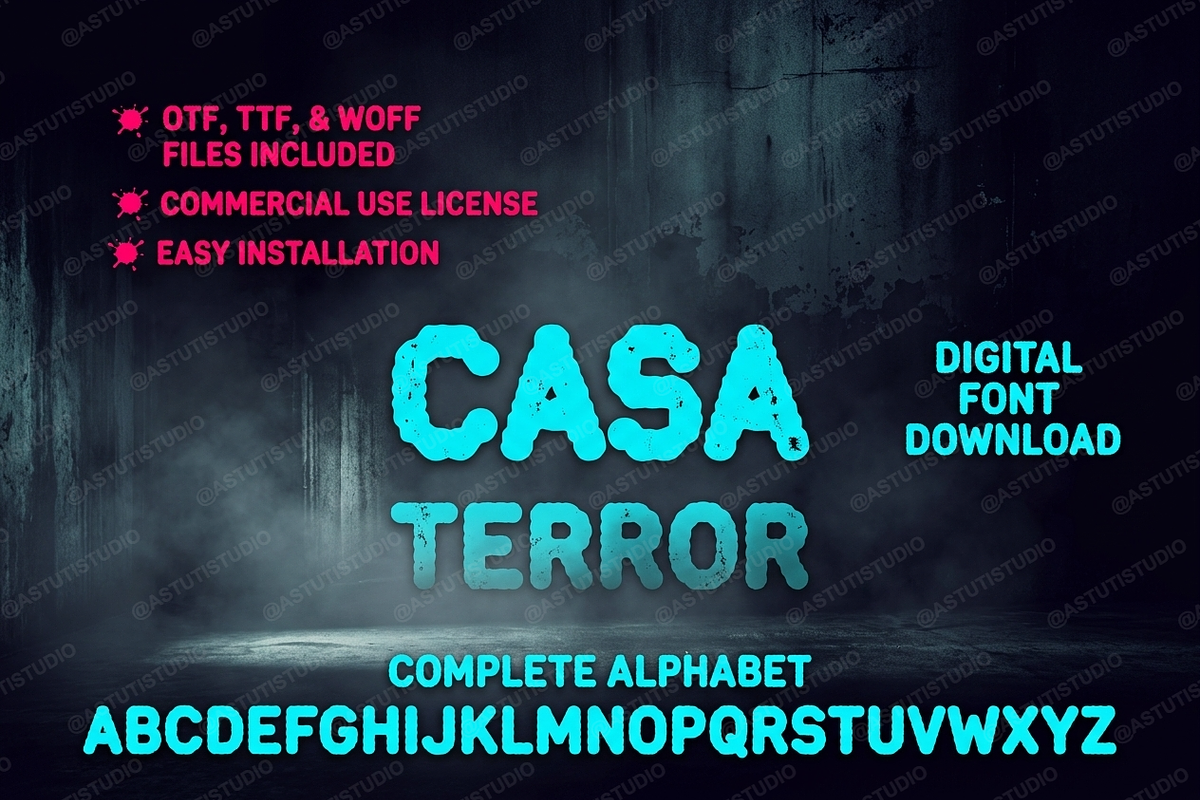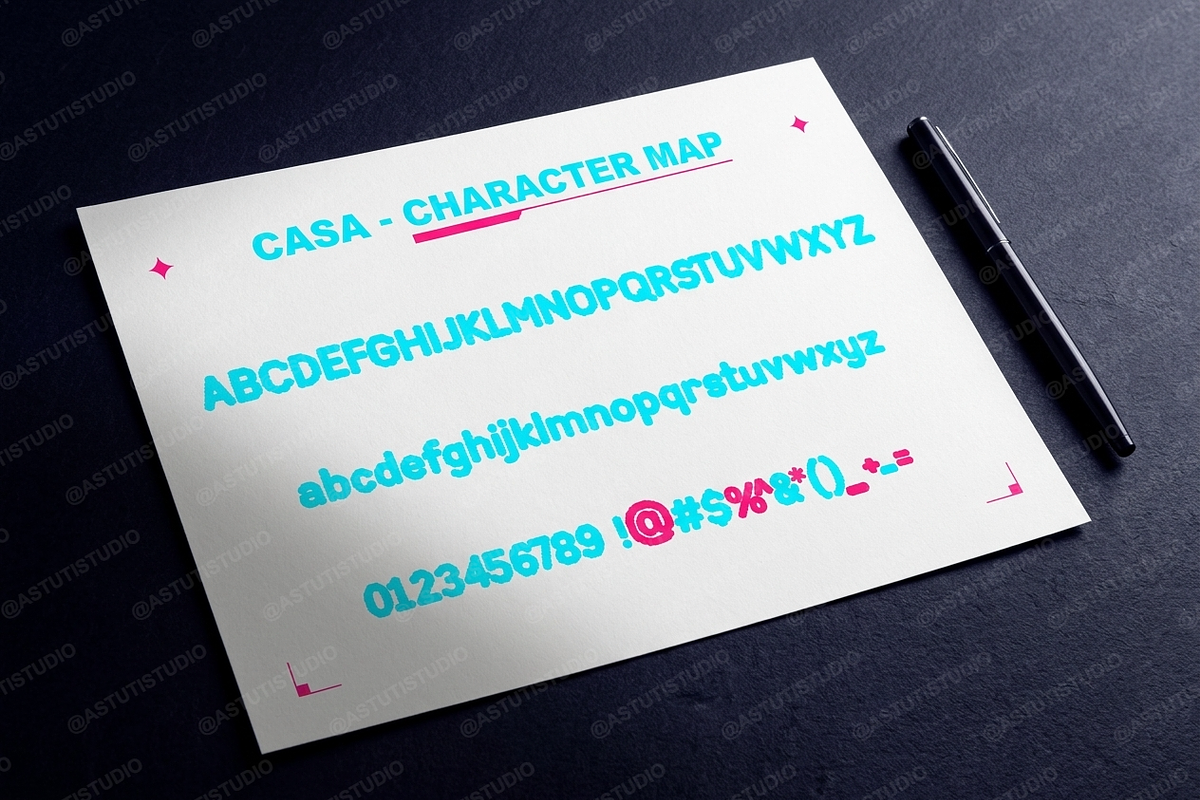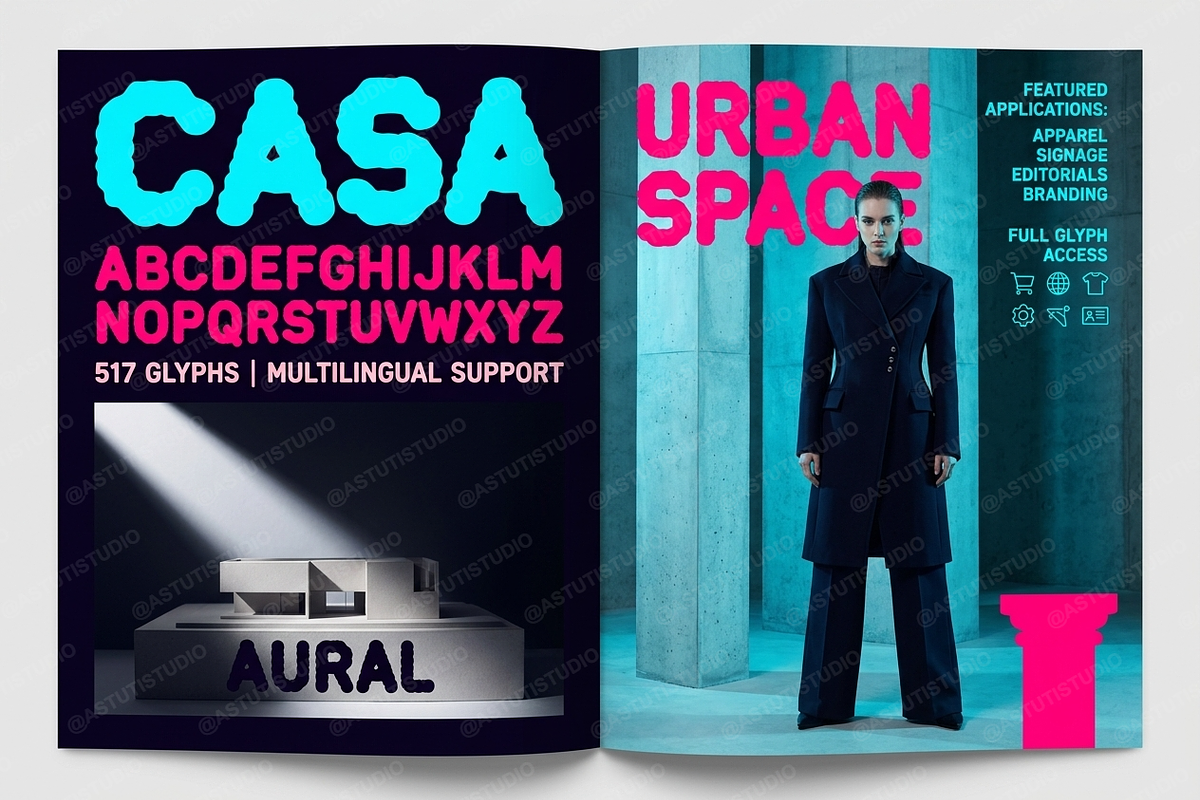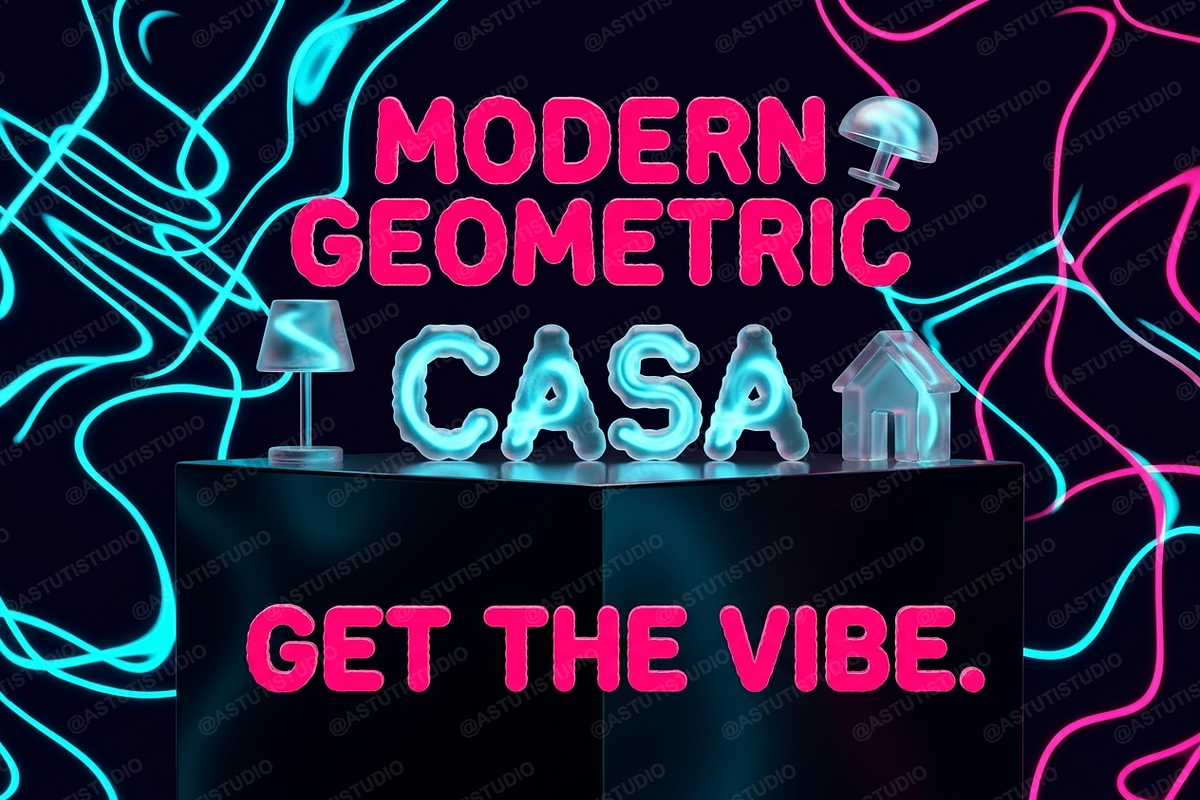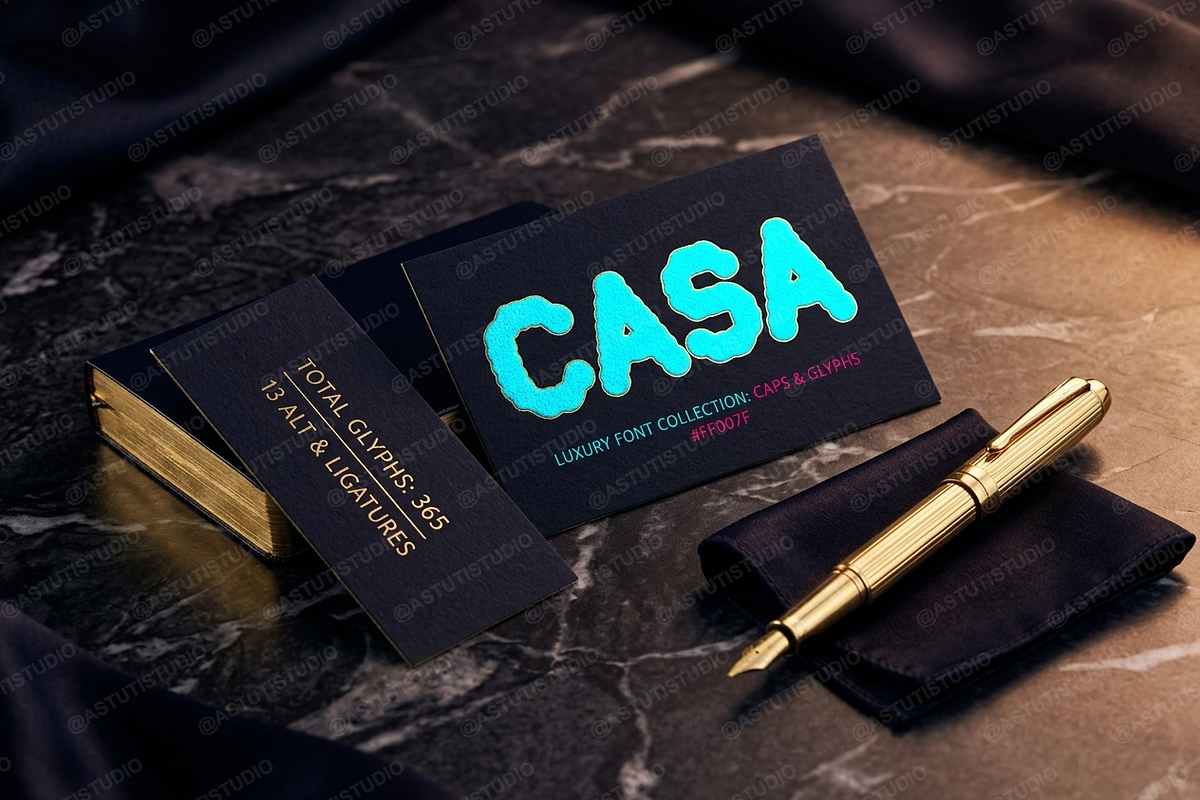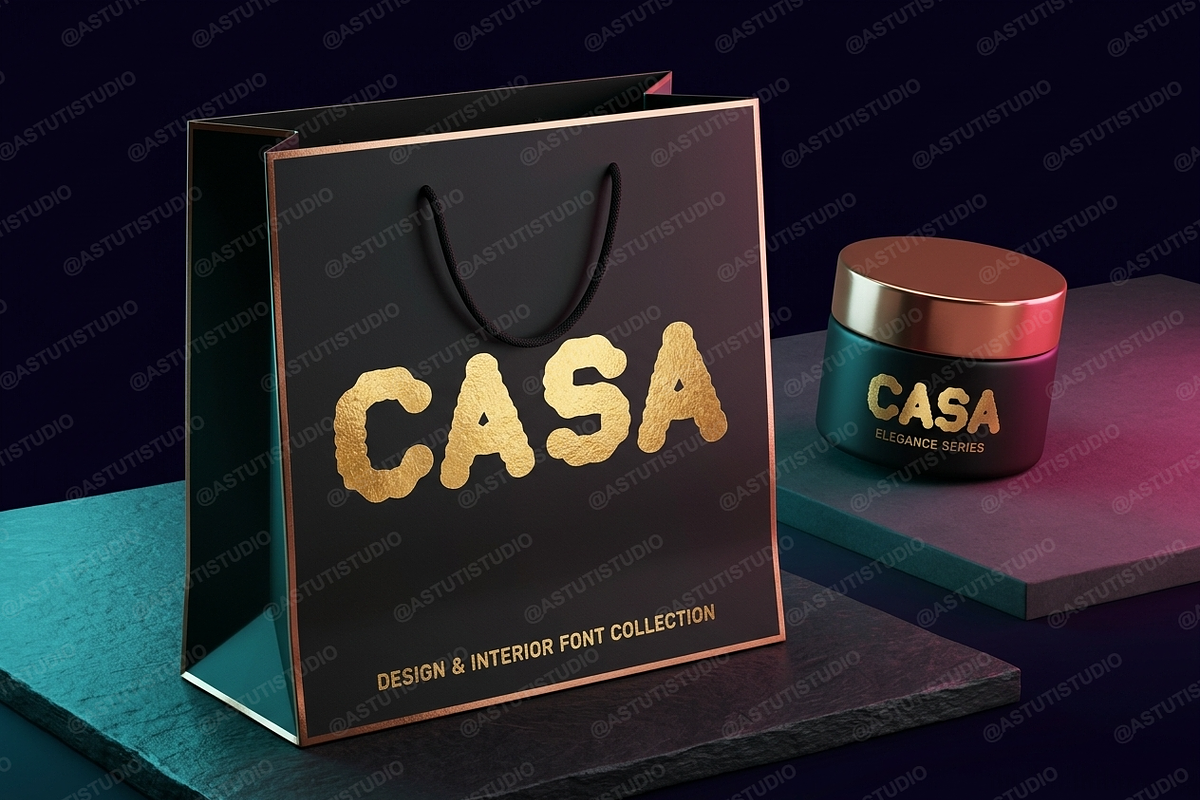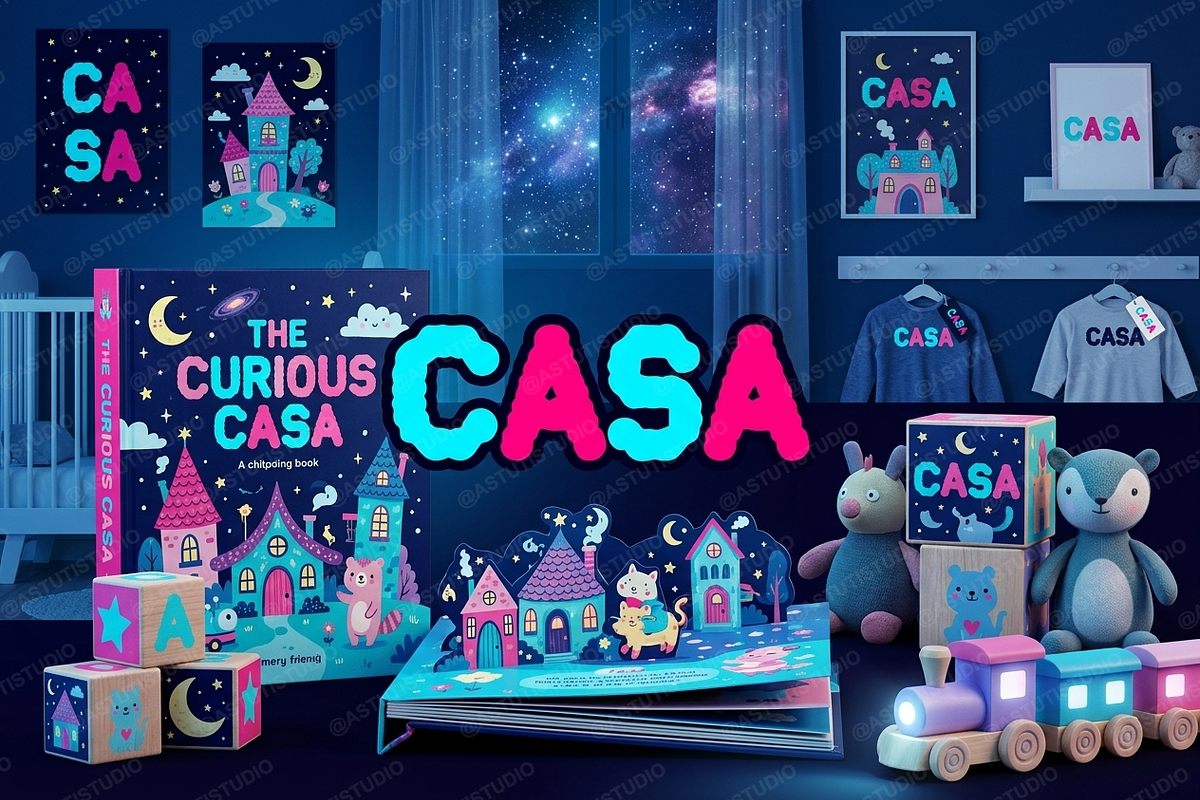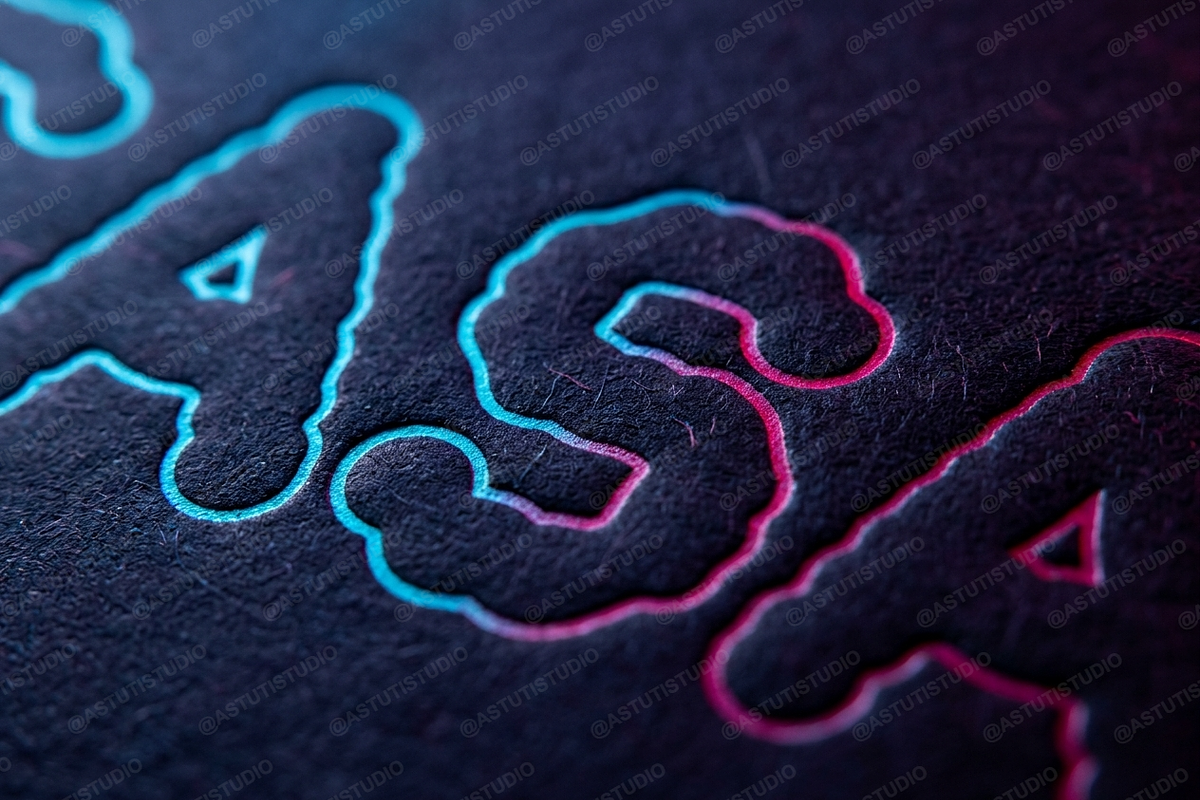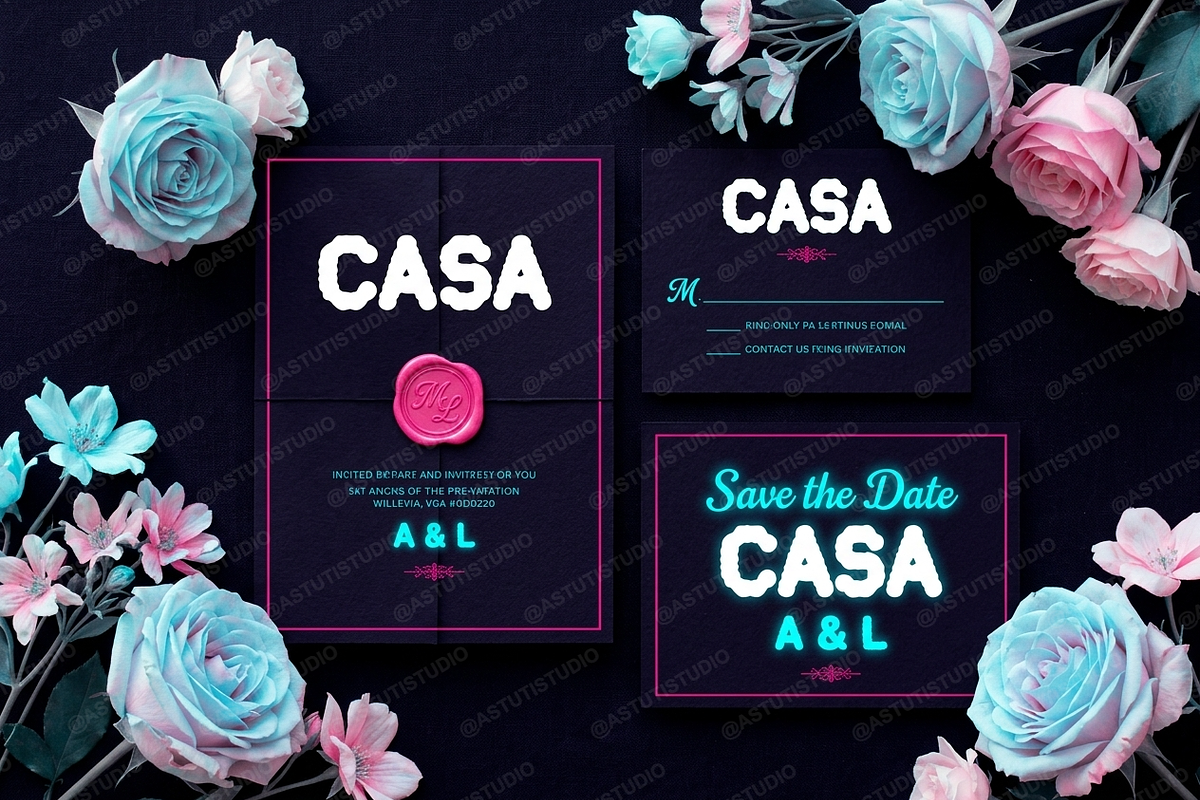
Casa | Elegant Serif Typeface
Casa is a premium serif typeface crafted for high-end aesthetic projects. Inspired by modern editorial design and classic architecture, Casa brings an air of quiet luxury and sophistication to any creative work. It is the perfect choice for high-end branding, fashion magazines, minimalist logos, and elevated social media content.
- Refined high-contrast serif design
- Extensive set of unique ligatures
- Full multilingual character support
- Optimized for both print and digital displays
- Elegant, balanced letterforms for superior readability
- Full set of uppercase and lowercase letters
- Numbers, punctuation, and decorative alternates